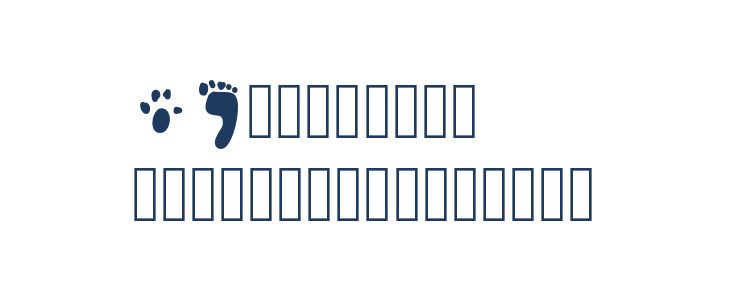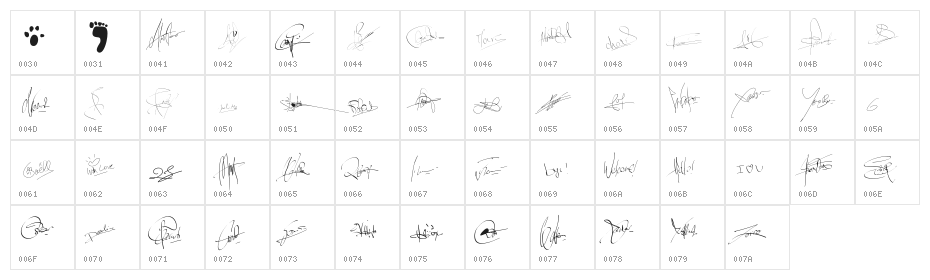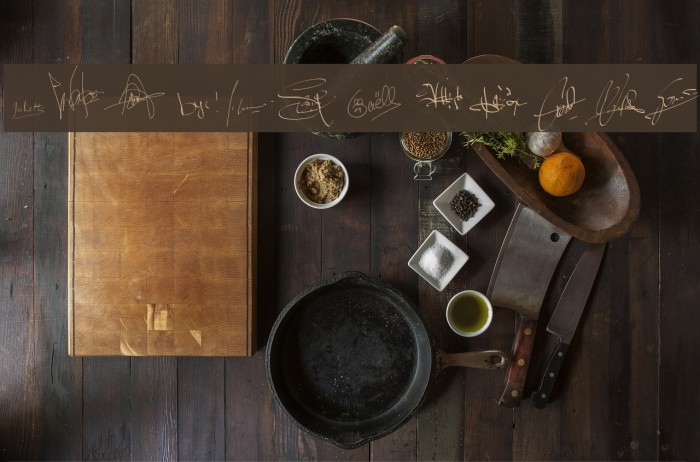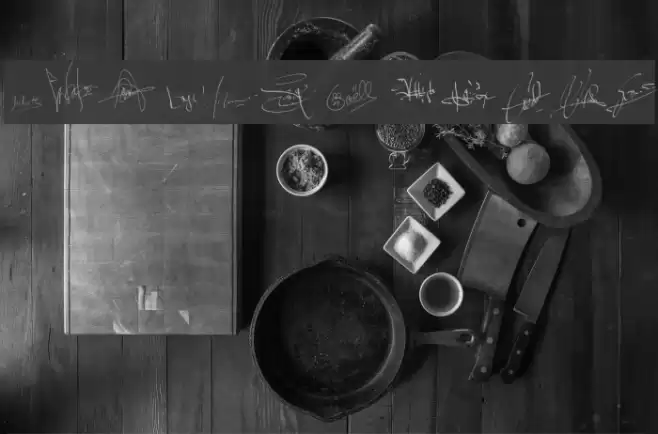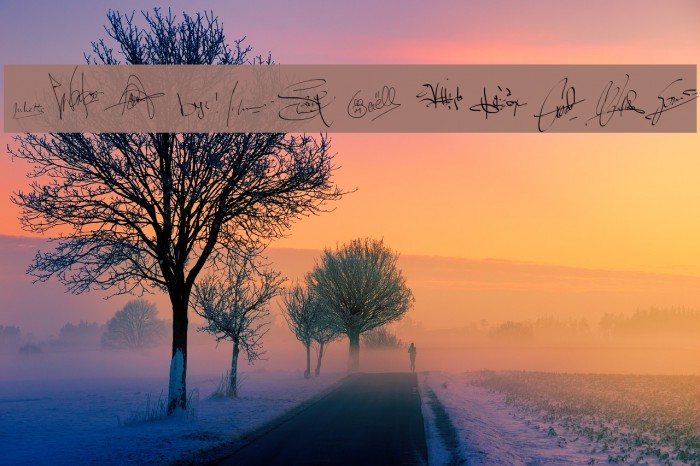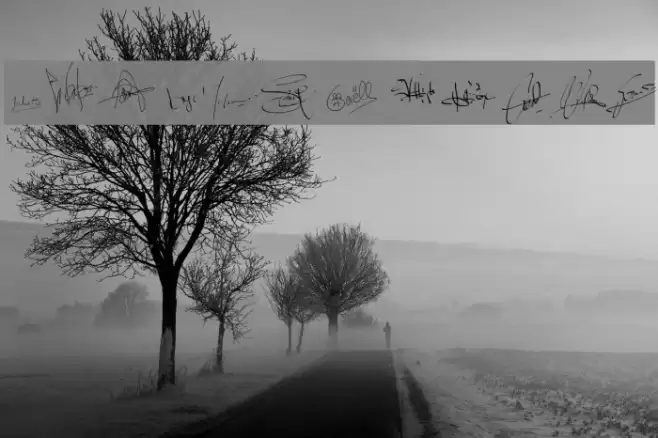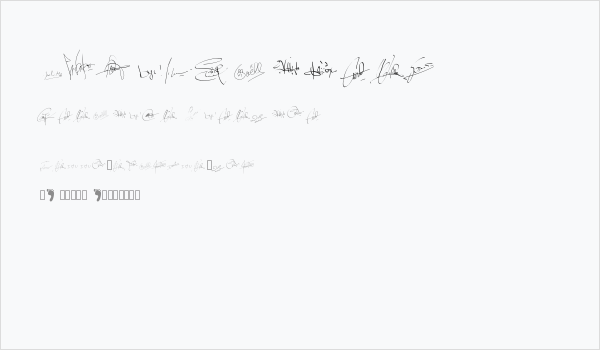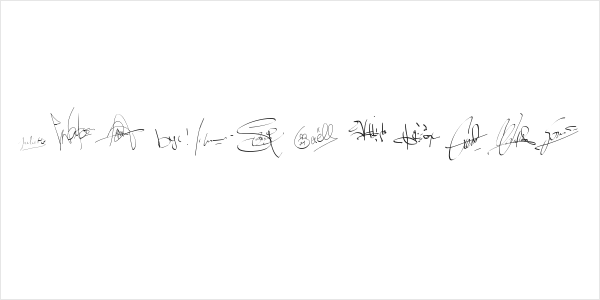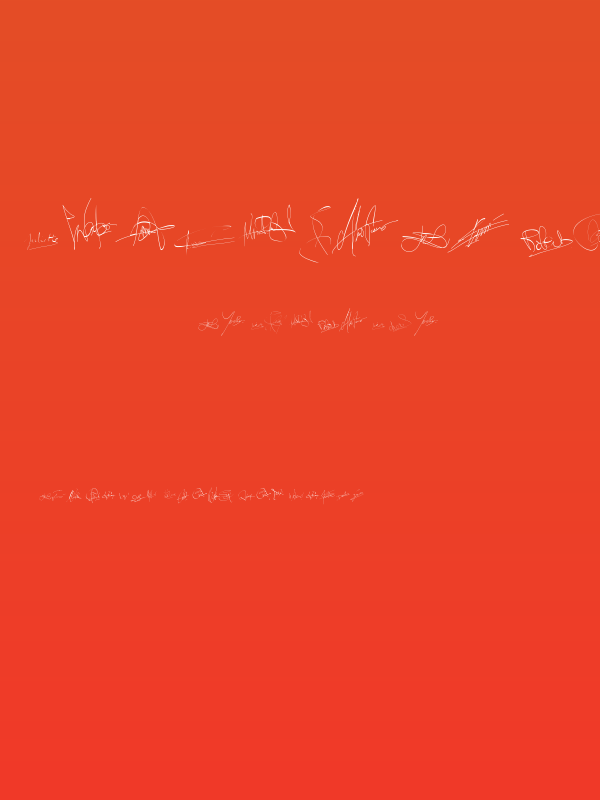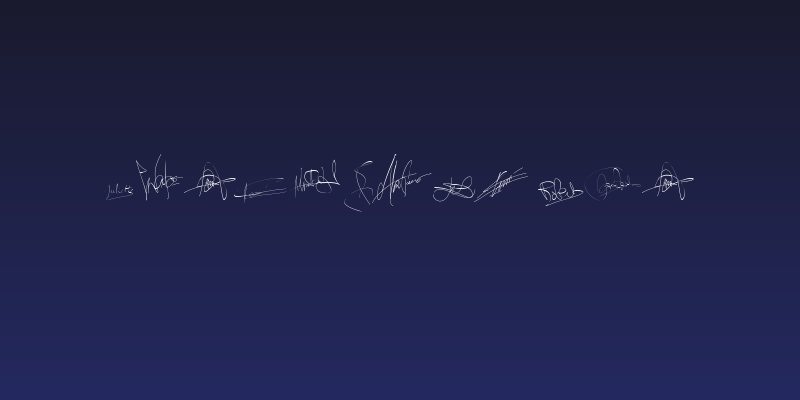
PWSignatures Font
PWSignatures Description
This font mimics the fluid, cursive style of handwritten signatures, characterized by its intricate and flowing lines. Each character appears as a unique signature, with varying loops and swirls that give it a personal and artistic touch. The font captures the essence of individuality and creativity, making it ideal for projects that require a personal or artistic flair. The inclusion of paw and footprint symbols adds a playful element, while the boxed characters provide a stark contrast with their bold, structured appearance. This combination of elements makes the font versatile for both formal and informal applications.
| Overall Style | Artistic |
| Use Case | Logos, Invitations, Artistic Prints |
| Proposed Projects | Ideal for branding, personal stationery, artistic projects, and playful designs. |